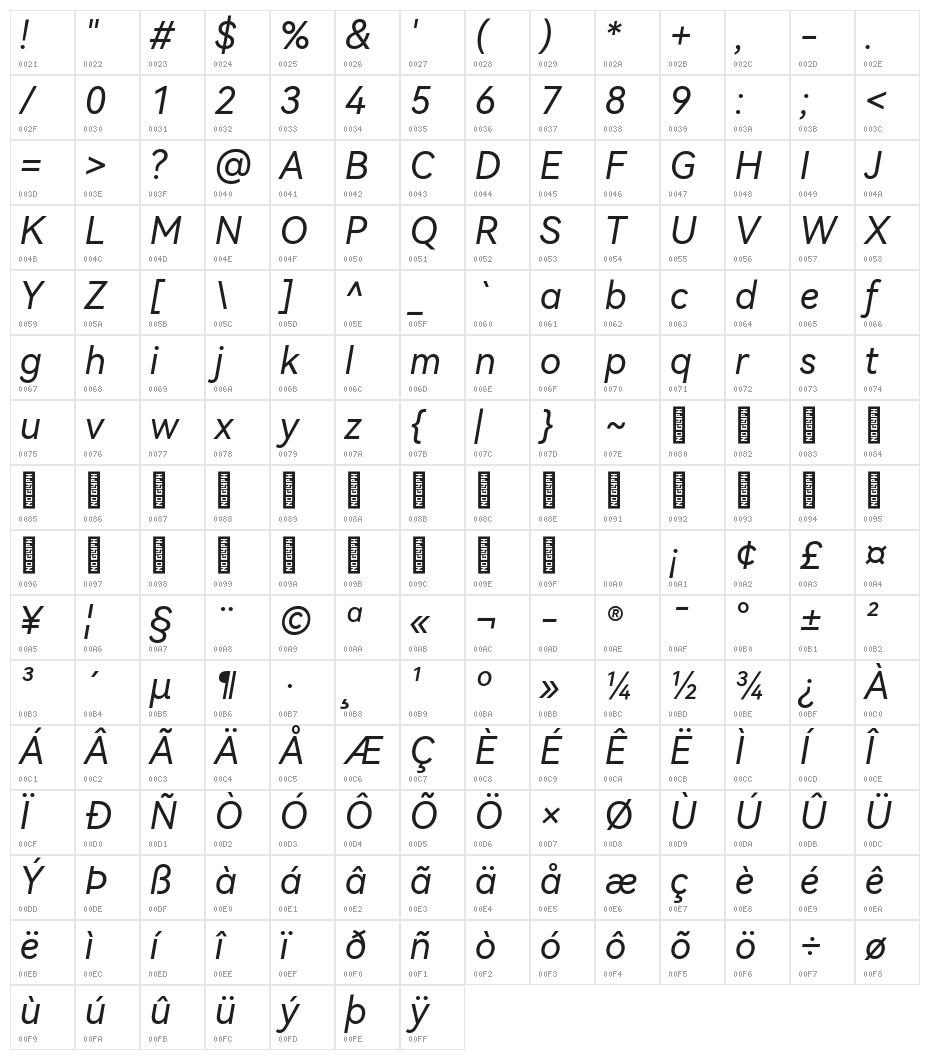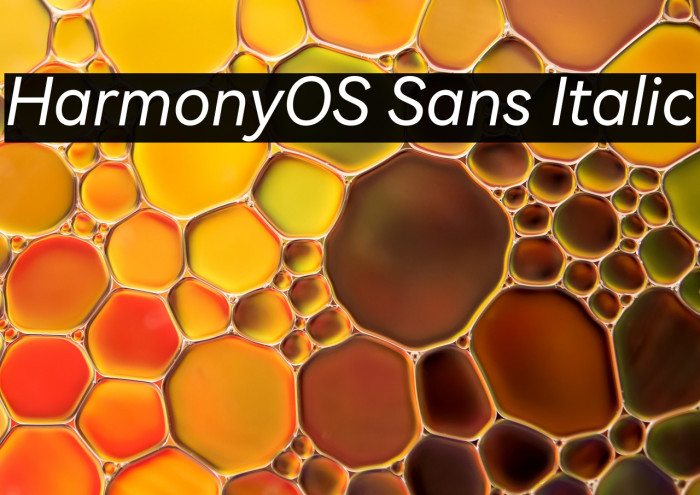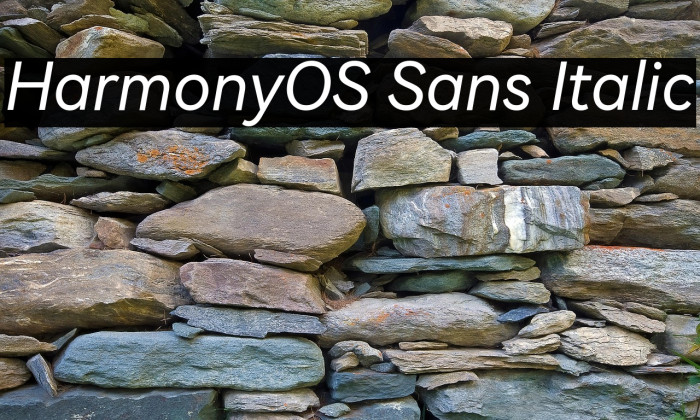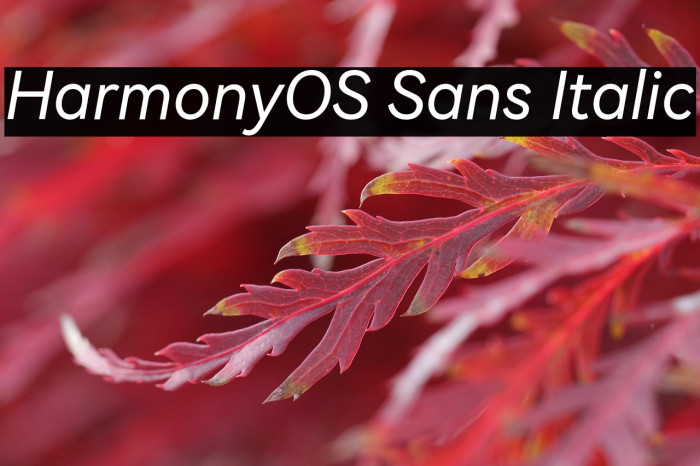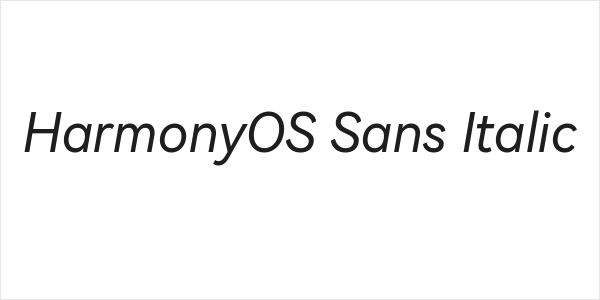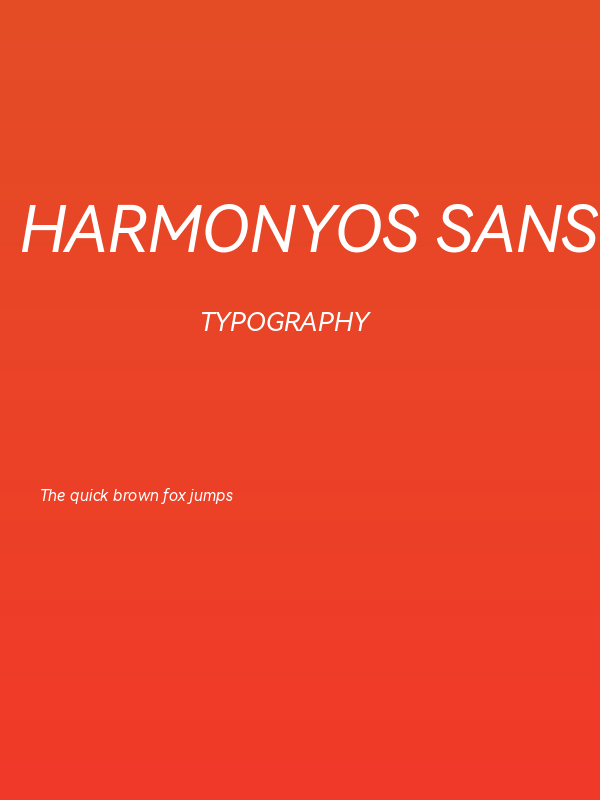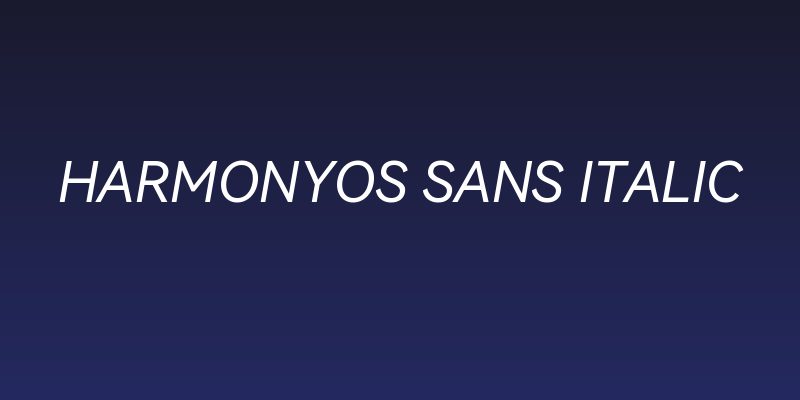
HarmonyOS Sans Italic Font
HarmonyOS Sans Italic Description
This font features a clean and modern sans-serif style with an italic slant, providing a sleek and contemporary appearance. The characters are well-proportioned, with smooth curves and a consistent stroke width that enhances readability. The uppercase letters are bold and assertive, while the lowercase letters maintain a friendly and approachable feel. The numerals are clear and distinct, making them suitable for various applications. Special characters are designed with precision, ensuring they integrate seamlessly with the rest of the typeface. Overall, this font exudes a professional yet stylish vibe, perfect for modern digital interfaces.